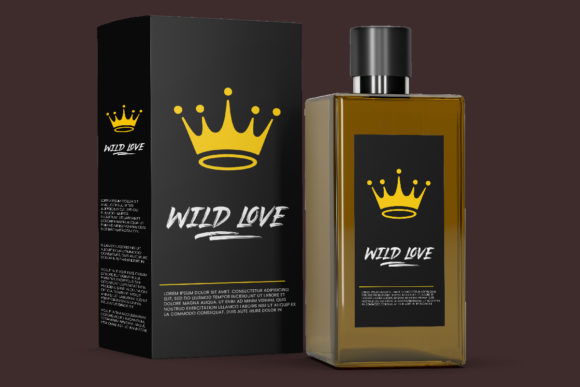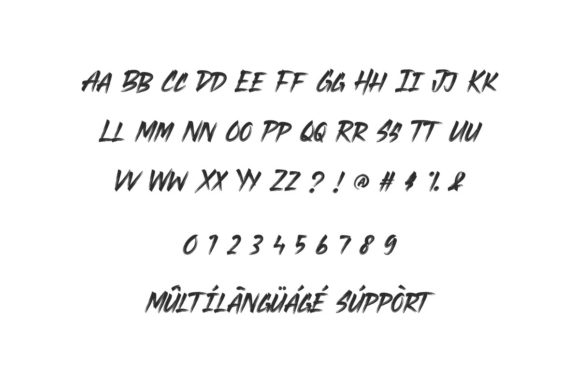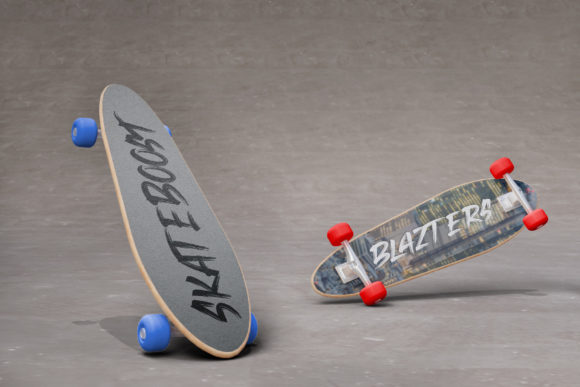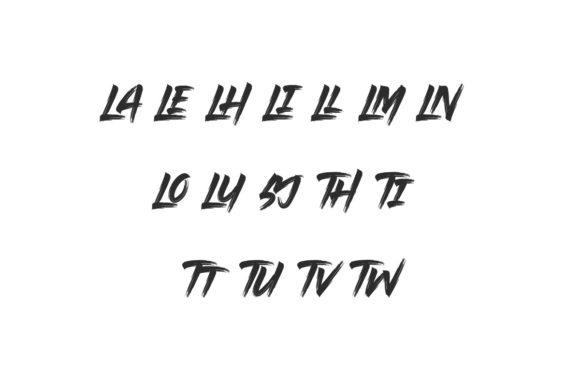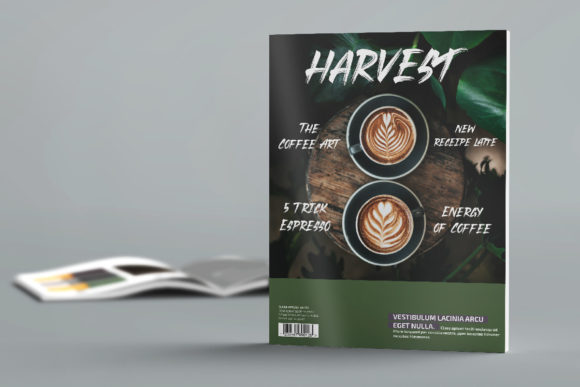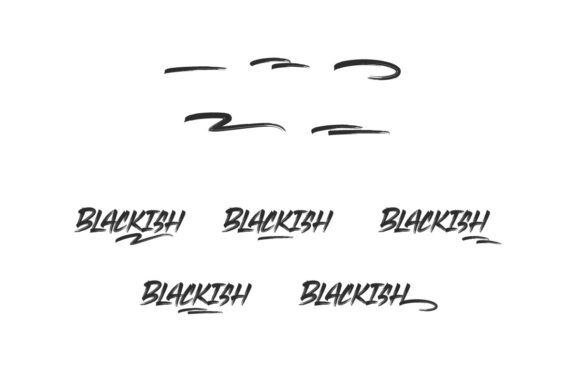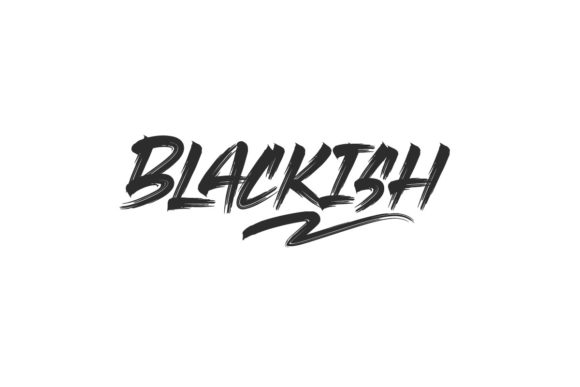
Unleash the Mystery: Exploring the Blackish Font
In the realm of typography, few fonts manage to evoke a sense of mystery and intrigue as effectively as the Blackish Font. This stunning textured display font has been making waves in the design community, and for good reason. With its unique blend of ruggedness and elegance, Blackish is the perfect choice for designers and crafters looking to add a touch of enigma to their projects.
The Essence of Blackish Font
Blackish is more than just a font – it’s an experience. Its textured, rough-hewn appearance gives it a tactile quality that’s hard to ignore. The font’s mysterious vibe is palpable, making it an excellent choice for projects that require a sense of drama and intrigue. Whether you’re working on a logo, branding materials, or artistic designs, Blackish is sure to leave a lasting impression.
One of the standout features of the Blackish Font is its versatility. This font is not limited to a specific type of project; rather, it’s a jack-of-all-trades that can be used in a wide range of applications. Here are just a few ideas to get you started:
• Events: Use Blackish to create eye-catching invitations, posters, and flyers that set the tone for a mysterious and unforgettable experience.
• Artistic Designs: Add a touch of edginess to your artwork with Blackish’s unique texture and vibe.
• Branding and Logos: Create a lasting impression with a logo that exudes mystery and sophistication.
• Stationery: Elevate your stationery game with Blackish’s elegant, textured appearance.
• Signage: Draw attention to your business or event with bold, eye-catching signage featuring the Blackish Font.
What Makes Blackish Stand Out?
So, what sets Blackish apart from other fonts in its class? Here are a few key features that make it a standout:
• Unique Texture: Blackish’s textured appearance gives it a one-of-a-kind look that’s sure to grab attention.
• Mysterious Vibe: The font’s rugged, edgy feel evokes a sense of mystery and intrigue.
• High Versatility: Blackish can be used in a wide range of projects, from artistic designs to branding and signage.
• Elegant Appearance: Despite its rugged texture, Blackish has an undeniably elegant appearance that’s perfect for high-end designs.
Tips for Using Blackish Font
To get the most out of the Blackish Font, here are a few tips to keep in mind:
• Experiment with Sizes: Blackish looks great in a variety of sizes, from small text to large display fonts.
• Play with Colors: The font’s textured appearance looks great in a range of colors, from bold and bright to muted and subtle.
• Mix and Match: Don’t be afraid to combine Blackish with other fonts to create a unique and eye-catching design.
The Blackish Font is a game-changer for designers and crafters looking to add a touch of mystery and intrigue to their projects. With its unique texture, elegant appearance, and high versatility, Blackish is the perfect choice for a wide range of applications. Whether you’re working on a logo, branding materials, or artistic designs, Blackish is sure to leave a lasting impression. So why wait? Unleash the mystery of Blackish and take your designs to the next level.